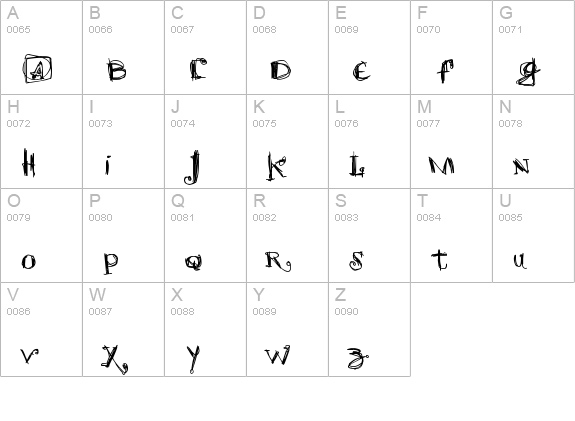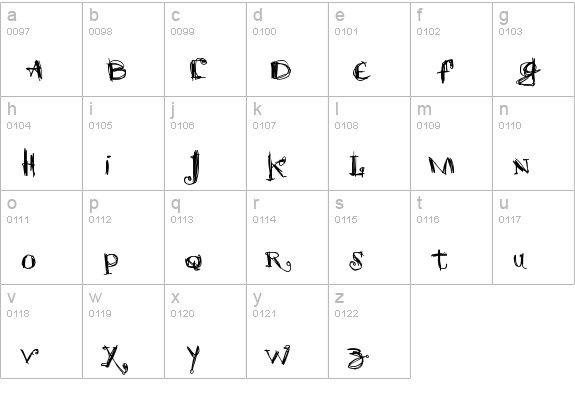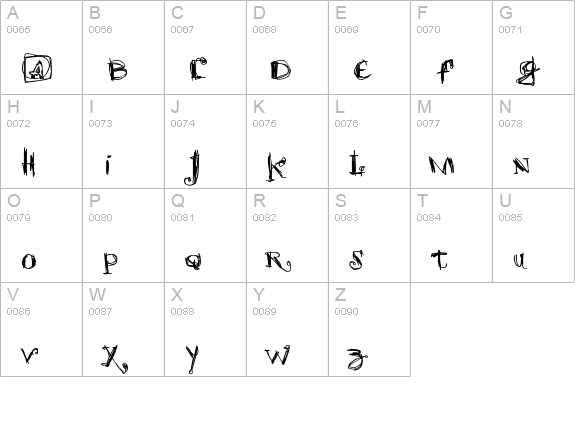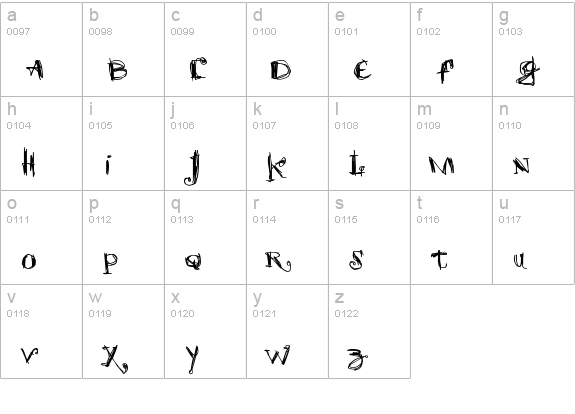
scretch Font Details
Introducing the mesmerizing Scretch font, a truly unique and eye-catching typeface that will add a touch of flair to any design project. With its intricate details and playful curves, Scretch is sure to make a lasting impression. What sets Scretch apart from other fonts is its ability to effortlessly blend sophistication with a hint of whimsy. Each letter is carefully crafted to create a visually striking composition, allowing your words to come alive on the page. Whether you're designing a logo, poster, or website, Scretch will elevate your work to new heights. But what truly makes Scretch a must-have is that it is available for free! That's right, this stunning font can be downloaded without any cost at FontsMarket.com. We believe that creativity should be accessible to all, and we're thrilled to offer Scretch as a freely available resource for designers, artists, and enthusiasts alike. With Scretch, you'll have endless possibilities at your fingertips. Its versatility allows it to be used in a wide range of design projects, from elegant wedding invitations to bold headlines. No matter the context, Scretch will make a statement and capture attention. Don't miss out on the opportunity to enhance your designs with the incredible Scretch font. Visit FontsMarket.com today to download it for free and start creating captivating visuals that will leave a lasting impression. Embrace the power of Scretch and watch as your designs come to life with style and sophistication.